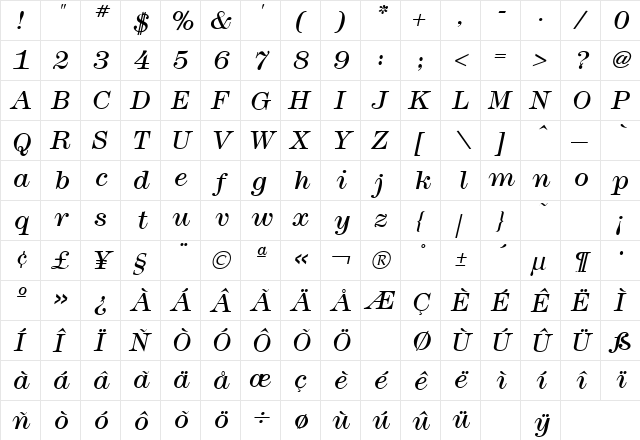
Modern No. 216 Italic
Design Context for Modern No. 216 Typeface
Modern No. 216 offers clean, dependable letterforms without strong stylistic allegiance, making it a practical choice for designers who need flexibility. Its italic angle brings a sense of urgency and motion to the letterforms.